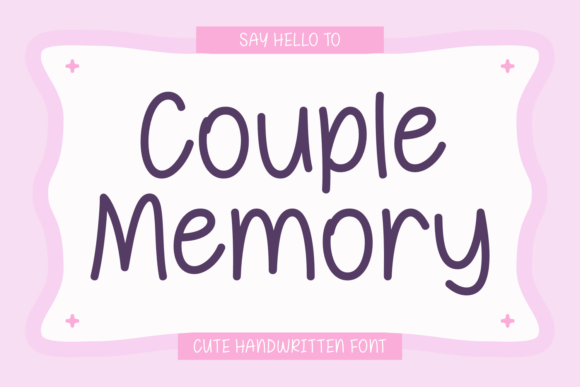
Celebrating Life’s Sweetest Moments with Couple Memory Font
Have you ever stumbled upon an old photo album filled with memories of your first date, your wedding day, or a romantic getaway? The sentimental value of those moments is palpable, and the way the photos are captioned in a handwritten font makes them all the more special. That’s the magic of Couple Memory Font – a beautiful, handwritten font designed to capture life’s precious moments and add a personal touch to your designs.
As a designer, you’re always on the lookout for that perfect font to convey emotion and warmth in your work. Couple Memory Font is the perfect choice for romantic greeting cards, wedding photo albums, and personalized gift tags. Its friendly silhouette makes it an authentic and relatable addition to any design project, allowing you to connect with your audience on a deeper level.
Couple Memory Font Key Features
- Unique Character Set: This font features a unique set of characters, including special symbols and glyphs, designed to help couples commemorate their special moments and milestones.
- Script and Calligraphy Options: The Couple Memory Font includes a range of script and calligraphy styles, allowing users to add a personal touch to their designs and writings.
Couple Memory Font Review
Overall, I was excited to dive into the Couple Memory Font and see what it had to offer. After playing around with it, I have to say that I was pleasantly surprised by some of its features. ✨ Here are a few things that stood out to me:
- The font’s unique, handwritten style is perfect for adding a touch of personality to designs.
- The font is highly customizable, with a wide range of font sizes, colors, and styles to choose from.
- The font includes a range of special characters and symbols, including hearts and love-themed icons, which are great for creating romantic designs.
However, there are a few limitations to the font that I think could be improved. ⚠️ These include:
- The font can be a bit inconsistent in its letter spacing, which can make it difficult to read in certain situations.
- The font doesn’t include a wide range of languages, which may limit its use in certain designs.
- The font’s customization options can be a bit overwhelming, making it difficult to know where to start.
Overall, I think the Couple Memory Font is a great addition to any designer’s toolkit. While it may have some limitations, its unique style and high level of customization make it a great choice for a wide range of designs.
Couple Memory Font Practical Application Guide
Tips for Getting the Most Out of Couple Memory Font
Use Couple Memory Font in combination with other romantic and sentimental graphics to create a cohesive design. Experiment with different font sizes, colors, and styles to add visual interest to your design. Use Couple Memory Font to create custom graphics and designs for special occasions, such as weddings, anniversaries, and Valentine’s Day.
Couple Memory Font is ideal for creating designs for special occasions, such as: